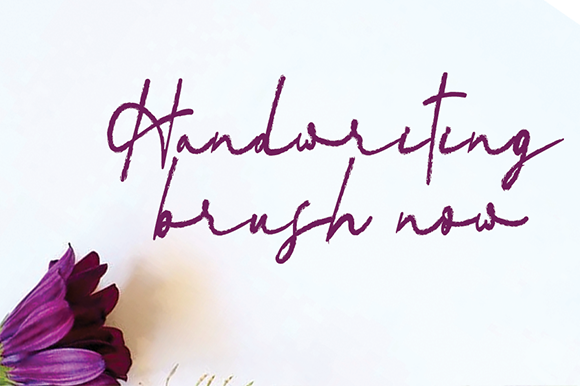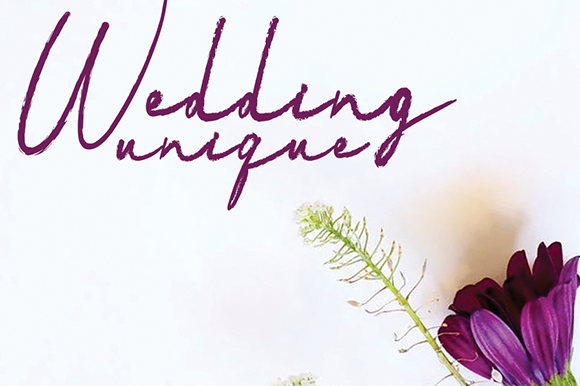
Vadimbrush Handwriting Font
db-ku.com - Script & Handwritten -- Vadimbrush Handwriting is a gorgeous and unique handwritten font, designed with the help of an outstanding brush pen. Add this font to your favorite creative ideas and notice how it makes them come alive!